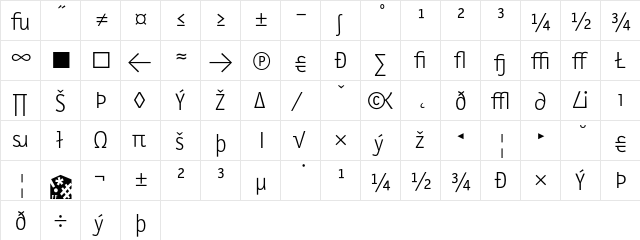
LetterGothicSlangT LightExp
Design Context for LetterGothicSlangT Typeface
LetterGothicSlangT takes a clean, functional approach — its unadorned letterforms prioritise legibility and work reliably across screen and print environments. The delicate stroke weight brings airiness and refinement to layouts.
Ideal for fashion and beauty branding, minimal editorial layouts, and premium digital experiences.
Font Pairing: Pair LetterGothicSlangT with a medium or bold serif for headlines — the weight contrast creates an elegant, high-end feel.
Pro Tip: Avoid using LetterGothicSlangT at very small sizes where its slender strokes can disappear. It performs best at medium to large sizes.